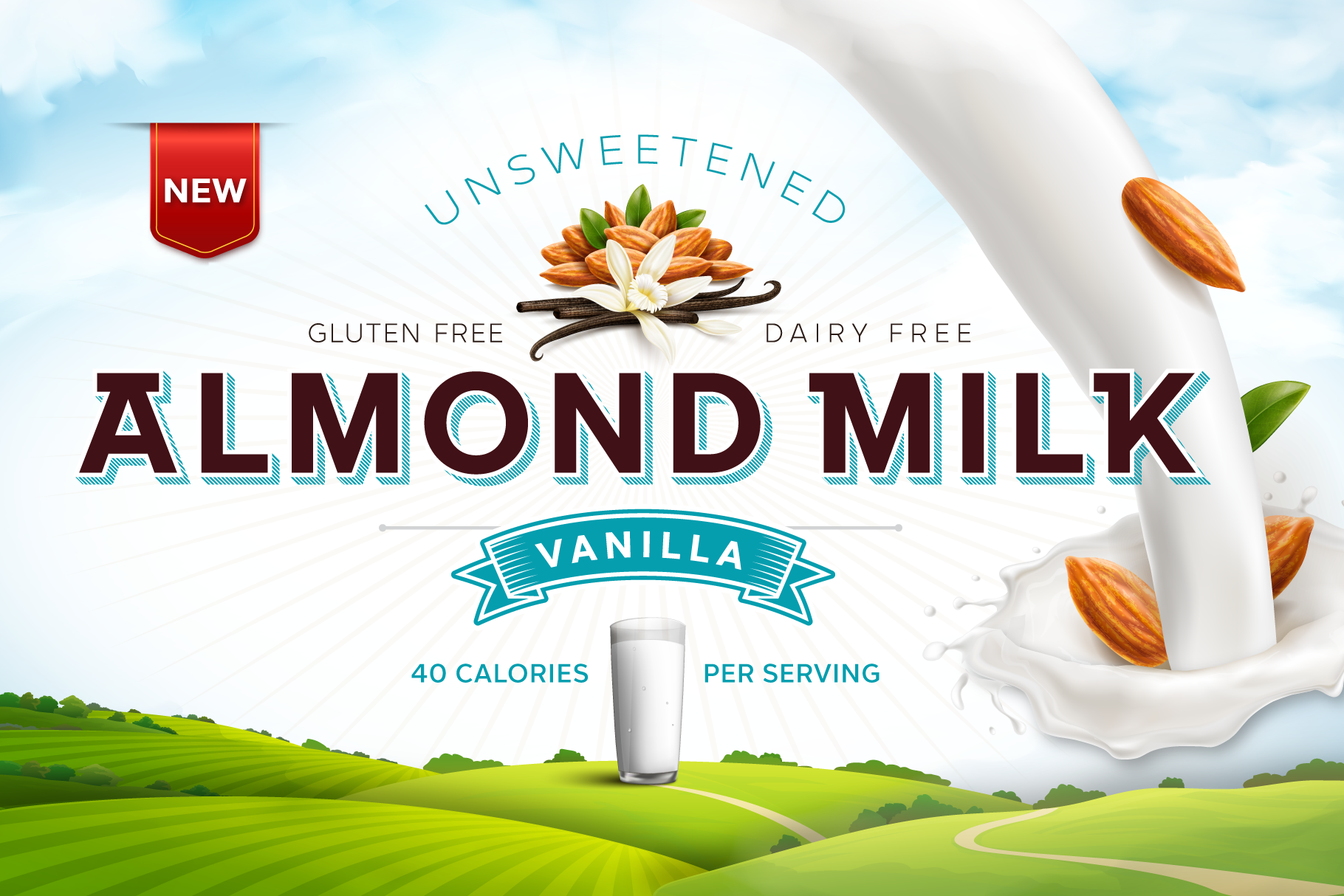
Versatile EP is a powerhouse of 9 fonts that make design and logo creation effortless. While other sans-serif fonts tend to be rigid and cold, Versatile stands out with it's warm and natural feel. It's generous x-height aids in its legibility and function, and the forms are classic yet modern allowing this font to live up to its name as a truly versatile workhorse for your next design or layout. Use it by itself, or in combination with Versatile 7 layer font package. (Sold Separately.) https://creativemarket.com/Borgeslettering/2019973-Versatile-Bold-7-Layered-Font.u=Borgeslettering
Versatile EP contains 3 body styles, and 6 shadow fonts including striped and solid in different weights.
Versatile EP is not just for the Graphic Designer. It's well suited for the Sign Maker, Cricut and Silhouette users, and anyone else who uses a vinyl plotter. It weeds beautifully in cut vinyl. Its different layers allow the user to stack multi-colored vinyl to create one a kind signs and displays.
Versatile EP is ideally suited for advertising and packaging, logo, branding and creative industries, poster and billboards, signage as well as web and screen design.
- 1,462 Glyphs (Characters) in each font for a total of 13,158 Glyphs per style pack.
- Languages supported including Cyrillic, Bulgarian Cyrillic and Greek.
- A massive library of Alternate Characters: Latin, Extended Latin and Cyrillic Alternates including their Diacritic and Small Cap counterparts.
- Superscripts, Subscripts, Numerators, Denominators, and Scientific Inferiors.
- Small Caps in Latin, Extended Latin and Cyrillic include Numbers, Punctuation, Diacritics and Alternates.
- Extended currency symbols including Bitcoin.
- Fun assortment of speech bubbles.
- Unlimited fractions.
Versatile EP makes designing fun!
Versatile Outline Reg is a separate font. It does not line up to the included shadows. This was done purposely as the shadows were created separately.